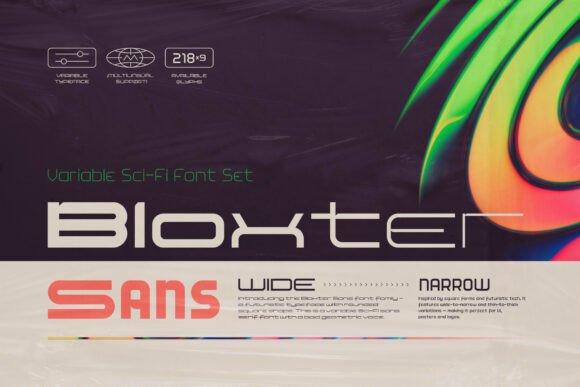
Introducing Bloxter Sans: A Futuristic Typeface for the Modern Designer
In the world of typography, fonts play a crucial role in communicating a message effectively. With the ever-evolving design landscape, it’s essential to have a font that not only stands out but also adapts to various design requirements. This is where Bloxter Sans comes in – a revolutionary, sci-fi sans serif font that is set to transform the way we approach typography.
The Inspiration Behind Bloxter Sans
Bloxter Sans draws inspiration from square forms and futuristic technology, giving it a bold, geometric voice. The font’s design is rooted in the concept of rounded square shapes, which provides a unique and distinctive look. This futuristic typeface is perfect for designers who want to add a touch of innovation and modernity to their work.
Key Features of Bloxter Sans
Bloxter Sans is not just another font; it’s a comprehensive typeface that offers a range of features, making it an ideal choice for various design projects. Some of its key features include:
- Variable Font: Bloxter Sans is a variable font, which means it can be adjusted to fit different design requirements. This feature allows designers to experiment with various weights and widths, giving them more creative control.
- Nine Weights and Widths: The font comes with nine different weights and width versions, providing a range of options for designers to choose from.
- Multilingual Support: Bloxter Sans offers multilingual support, making it a great choice for global brands and designers who work with clients from diverse linguistic backgrounds.
- Wide-to-Narrow and Thin-to-Thick Variations: The font features wide-to-narrow and thin-to-thick variations, which make it perfect for UI, posters, and logos.
Perfect for Various Design Projects
Bloxter Sans is a versatile font that can be used in a variety of design projects, including:
- User Interface (UI) Design: The font’s variable nature and wide range of weights and widths make it an excellent choice for UI design.
- Poster Design: Bloxter Sans is perfect for creating eye-catching posters, thanks to its bold and geometric voice.
- Logo Design: The font’s unique and distinctive look makes it an excellent choice for logo design.
Why Choose Bloxter Sans?
With so many fonts available, why should you choose Bloxter Sans? Here are a few reasons:
- Unique Design: Bloxter Sans has a distinctive look that sets it apart from other fonts.
- Versatility: The font’s variable nature and range of weights and widths make it suitable for various design projects.
- Multilingual Support: Bloxter Sans offers multilingual support, making it a great choice for global brands and designers.
In conclusion, Bloxter Sans is a game-changing font that is set to revolutionize the world of typography. Its unique design, versatility, and multilingual support make it an excellent choice for designers who want to create innovative and effective designs. Whether you’re working on a UI design project, creating a poster, or designing a logo, Bloxter Sans is the perfect choice.
Technical Specifications
Here are the technical specifications of Bloxter Sans:
- Font Family: Bloxter Sans
- Font Style: Sans Serif
- Font Weight: 9 weights and widths
- Font Style: Variable
- Language Support: Multilingual